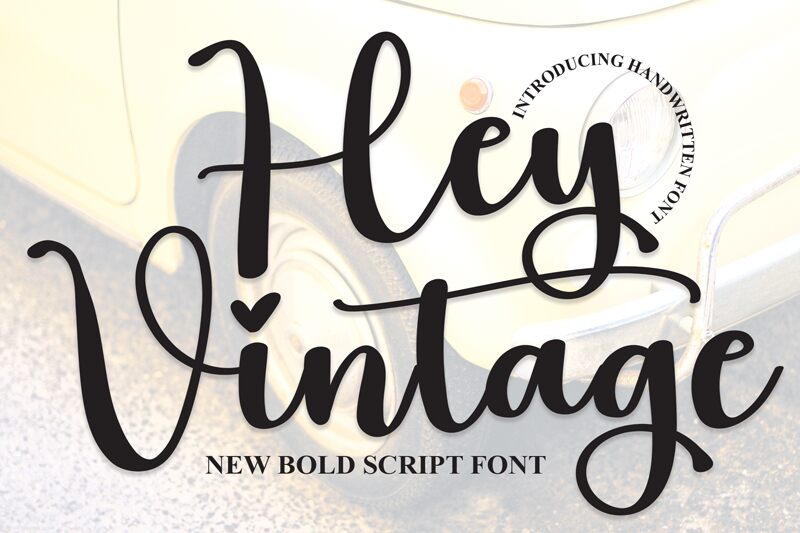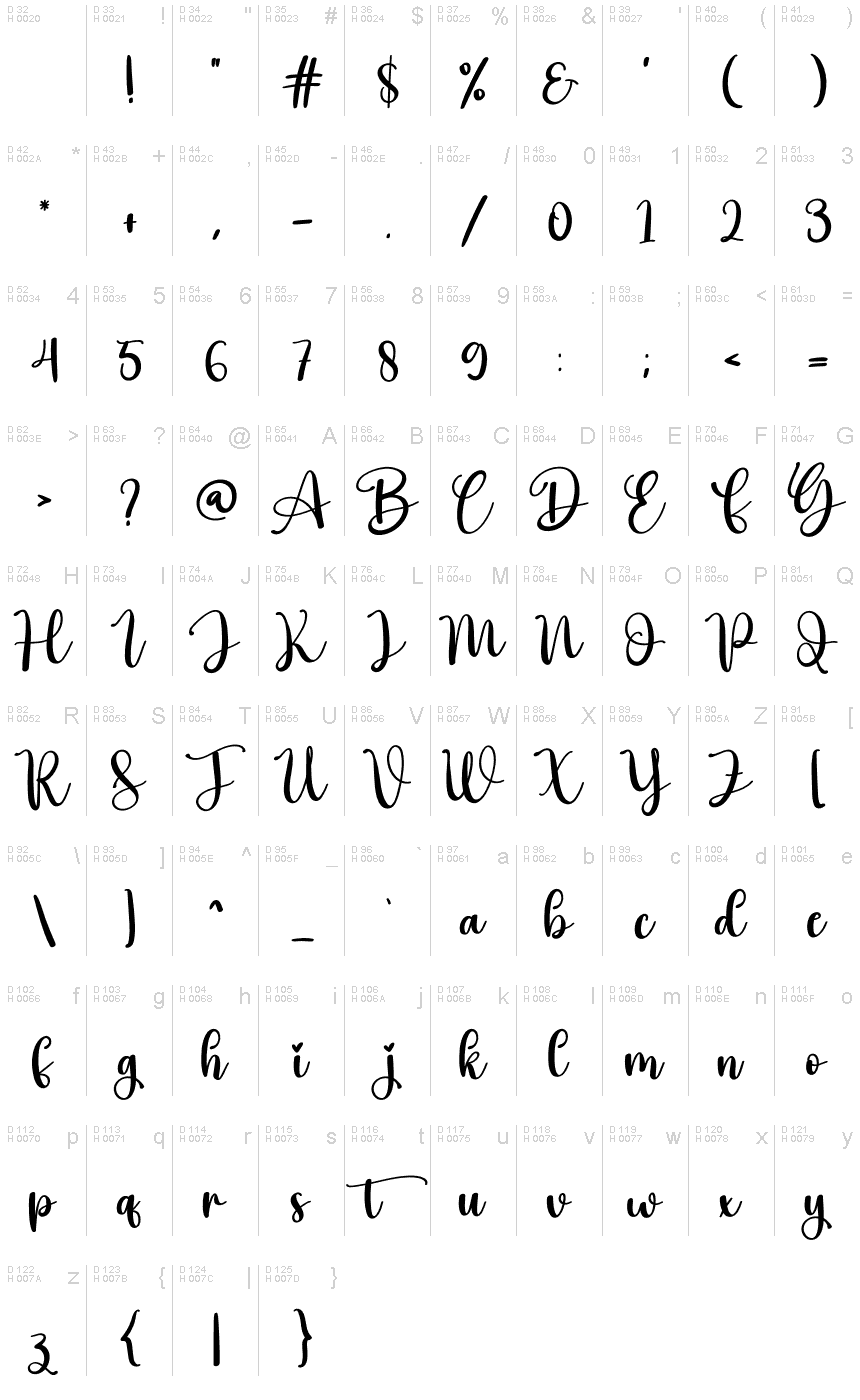
Hey Vintage
Hey Vintage, a whimsical and romantic font designed by Scratchones, captures the essence of feminine calligraphy with its graceful curves and delicate strokes. With its semi-bold weight, this typeface adds a touch of elegance to any project.
Perfect for wedding invitations, love letters, or Valentine's Day cards, Hey Vintage brings a sense of nostalgia and charm to your designs. Whether you're planning a vintage-inspired event or simply want to add a hint of romance to your work, Hey Vintage is the ideal choice for creating heartfelt and enchanting designs.